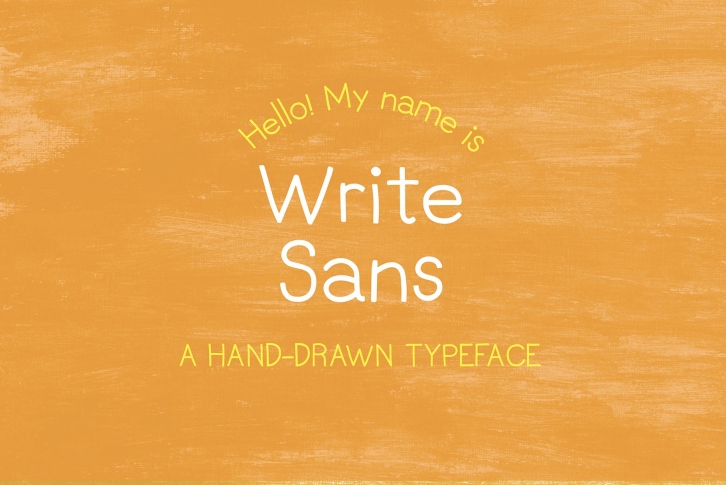
A hand-drawn typeface with a child-like, handwritten look. Works very well for designs for kids. Or use it to add a personal, playful touch to any design piece.